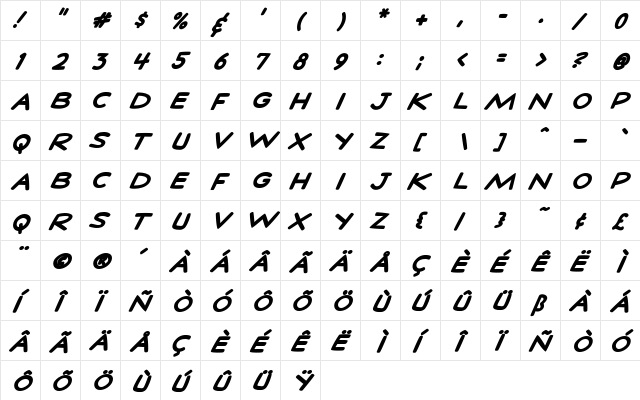
StanLee BoldItalic
Design Context for StanLee Typeface
StanLee offers clean, dependable letterforms without strong stylistic allegiance, making it a practical choice for designers who need flexibility. Its italic angle brings a sense of urgency and motion to the letterforms. Its bold stroke weight gives it real presence on the page.
Pro Tip: Use StanLee for emphasis, pull quotes, and subheadings where its slanted energy can add rhythm to the layout.